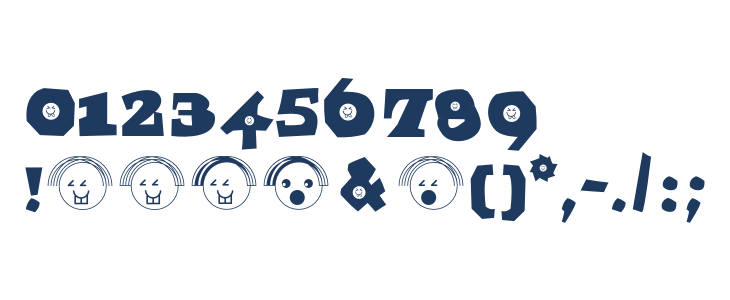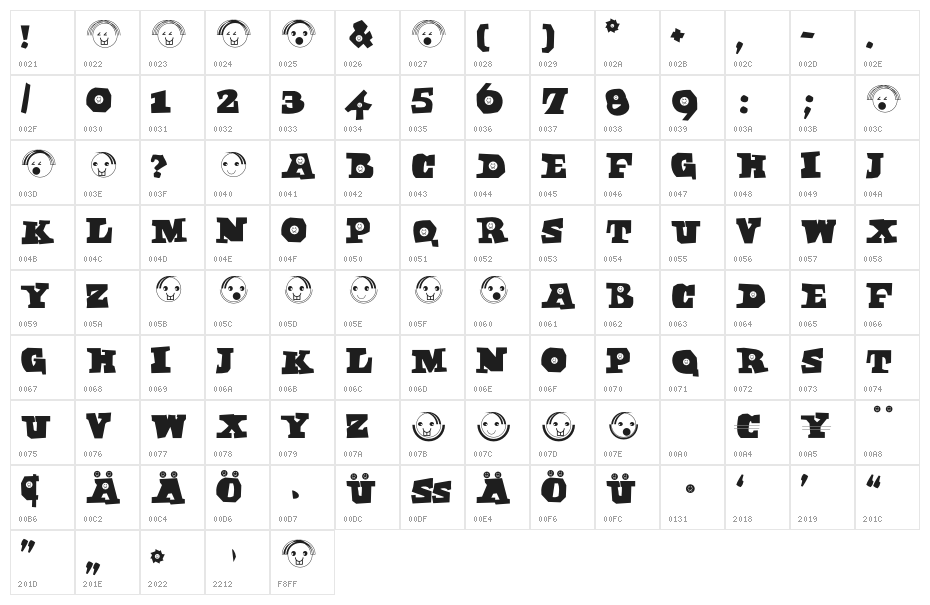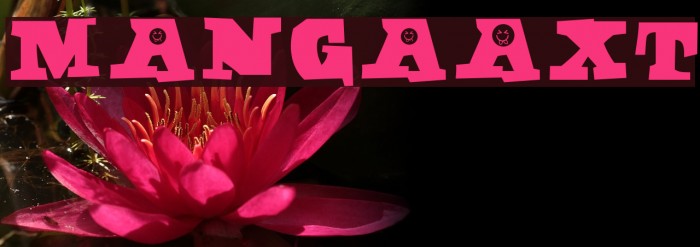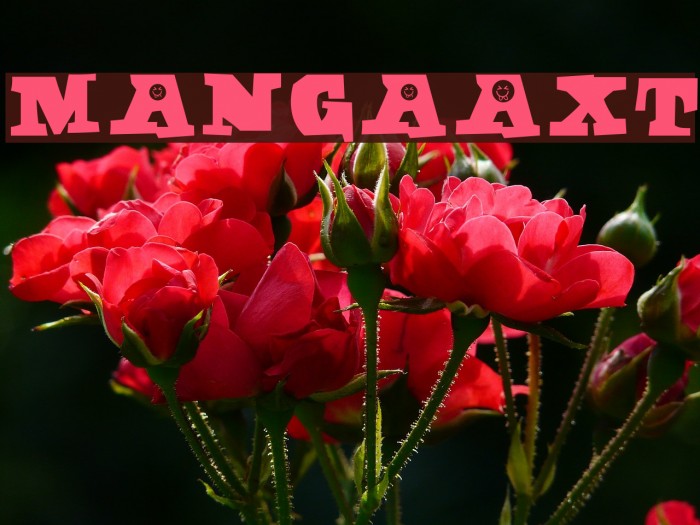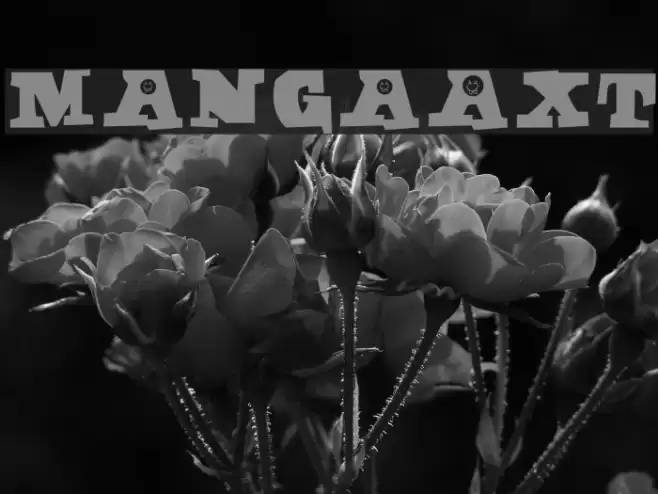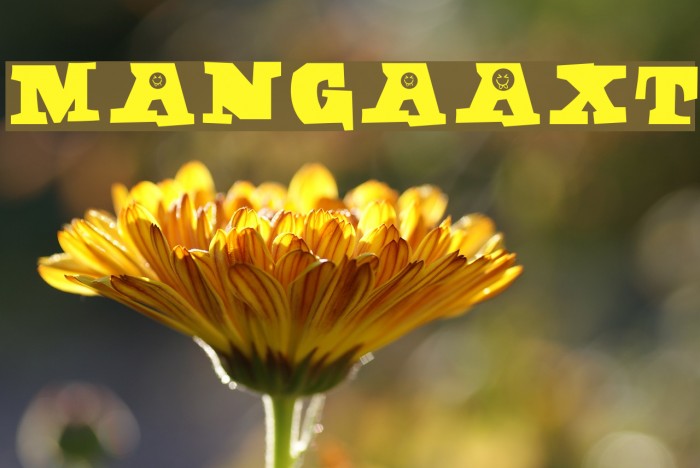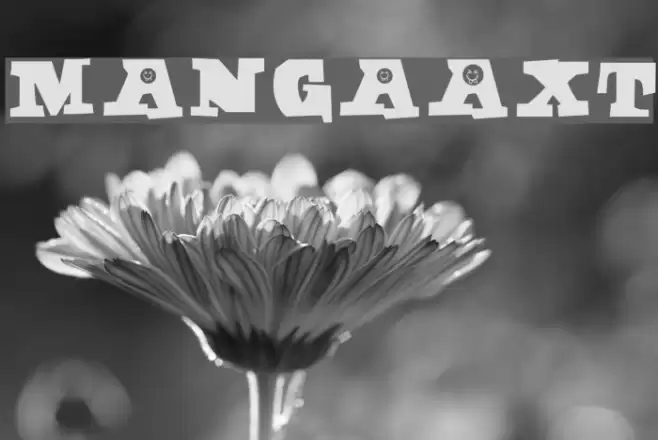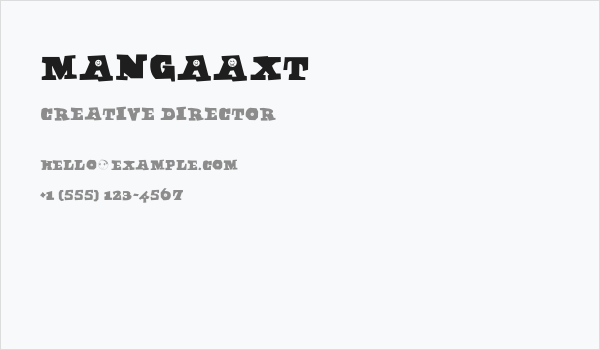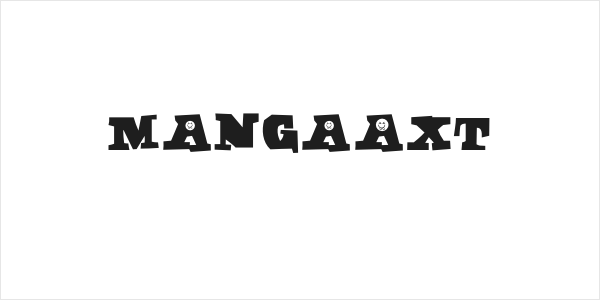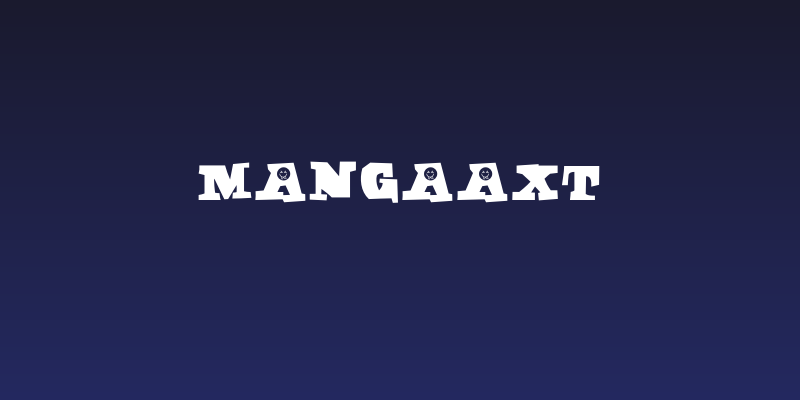
MangaAxt Font
MangaAxt Description
This font features a playful and bold design, characterized by its chunky, irregular shapes and cartoonish style. The letters are heavily stylized, with exaggerated curves and angles that give them a dynamic, energetic appearance. The font includes both uppercase and lowercase letters, numbers, and a variety of special characters. The overall look is whimsical and fun, making it ideal for projects that require a lively and informal touch. The unique design elements, such as the varied stroke widths and the playful incorporation of facial expressions in some characters, add to its distinctive charm.
| Overall Style | Playful, Cartoonish, Energetic |
| Proposed Projects | Ideal for comic books, children's books, playful branding, and creative posters. |